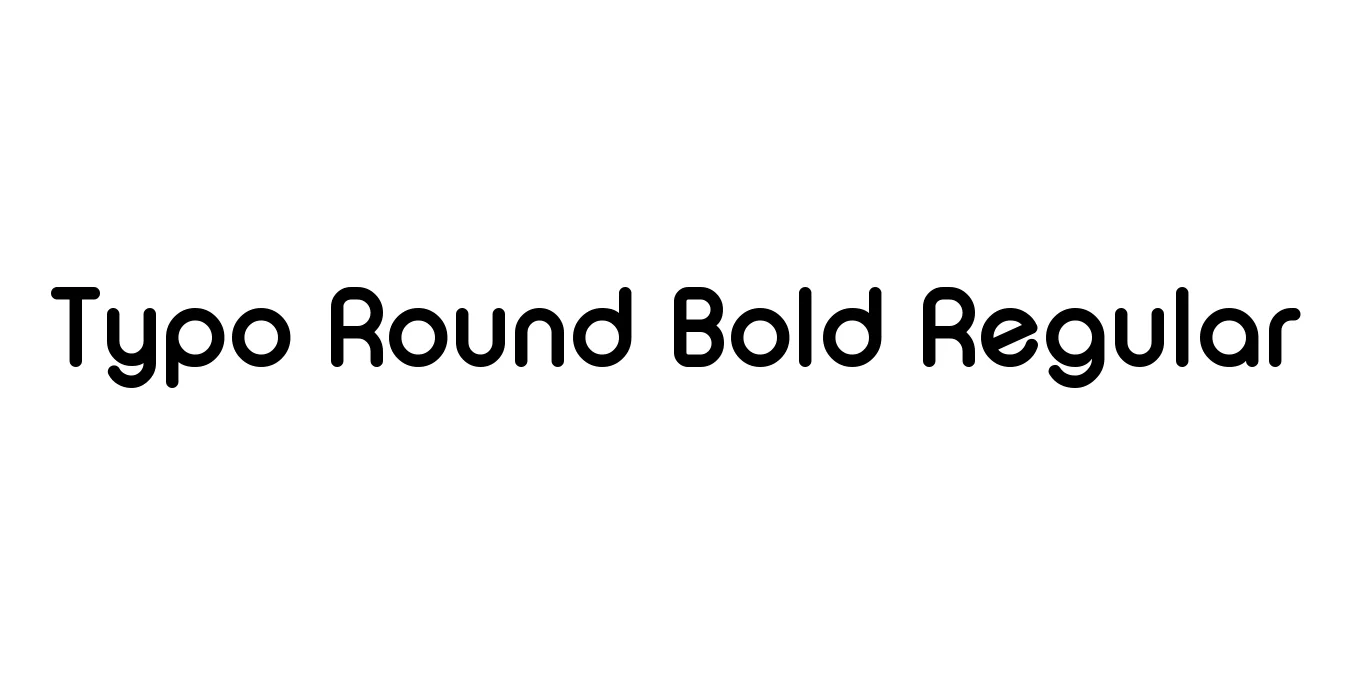
Typo Round Bold Regular
Designed by Studio Typo
Typo Round Bold Regular is a contemporary geometric sans-serif typeface that emphasizes soft, rounded terminals and a robust stroke weight. Created by Studio Typo, this font was engineered to balance technical precision with a friendly, approachable aesthetic. Its bold weight is specifically optimized for high-impact visibility, making it an excellent choice for modern branding, signage, and display purposes where clarity is paramount.
The typeface features a generous x-height and open counters, ensuring that it remains highly legible across both high-resolution print and digital screens. Typo Round Bold Regular is frequently utilized in user interface design and advertising campaigns to project a sense of warmth and accessibility without losing professional integrity. It serves as a versatile tool for designers who require a rounded typeface that is both playful and structurally sound.
Typo Round Bold Regular Best Uses
Ideal for creating soft yet professional brand identities and corporate logos.
Excellent for high-impact website banners and attention-grabbing headlines.
Provides great legibility for interface elements and buttons on mobile devices.
The soft, non-threatening edges make it perfect for educational and youth-oriented content.